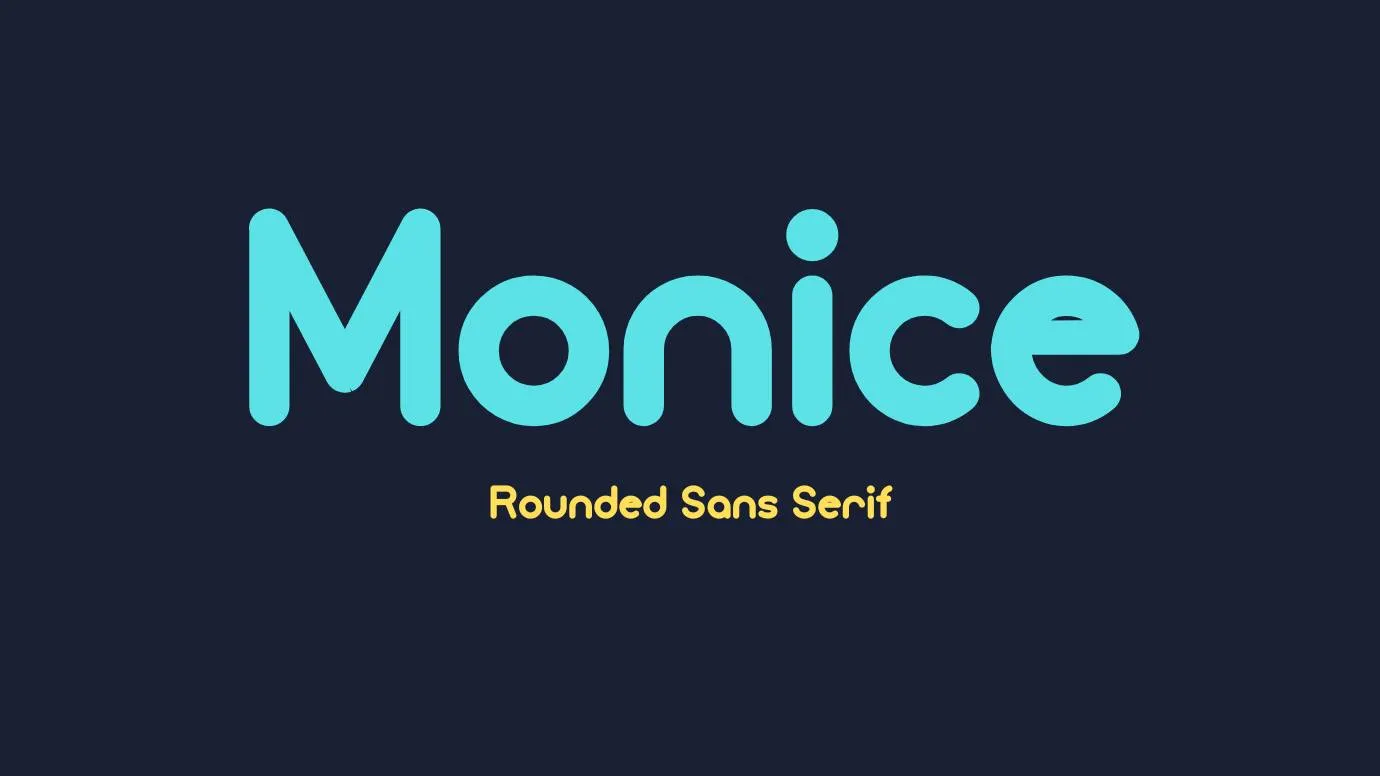
Monice Font Family is a unique geometric sans serif typeface. Renata and Sarah Suci are two designers who manufacture this typography and Edric Studio is the publisher of Monice Font.
Monice Font
NameMonice Font
TypeSans Serif
DesignerRenata, Sarah Suci
Foundry Edric Studio